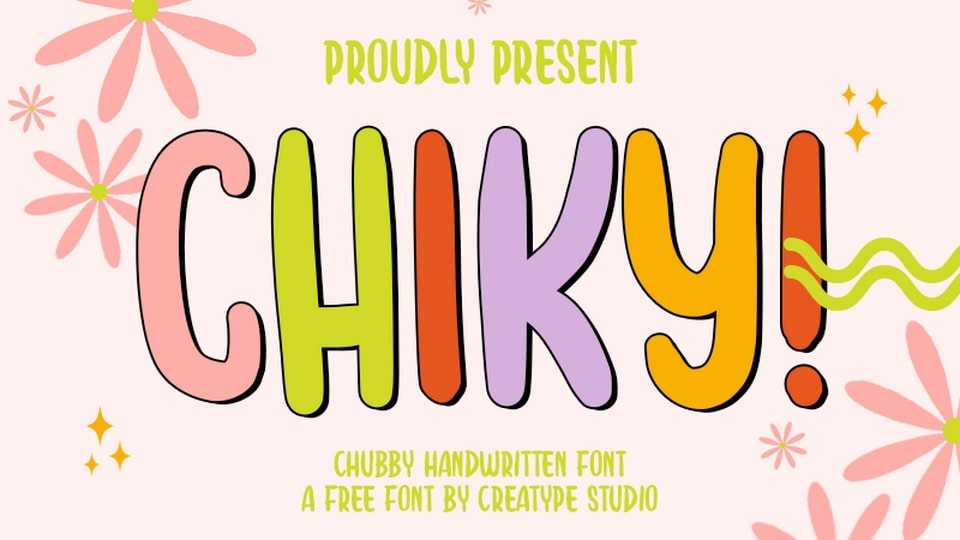
Download Chiky font, a funny and cute hand-drawn typeface that radiates charm with its tall and rounded letters. Chiky is a versatile choice for a variety of uses, from whimsical headlines to heartwarming designs.